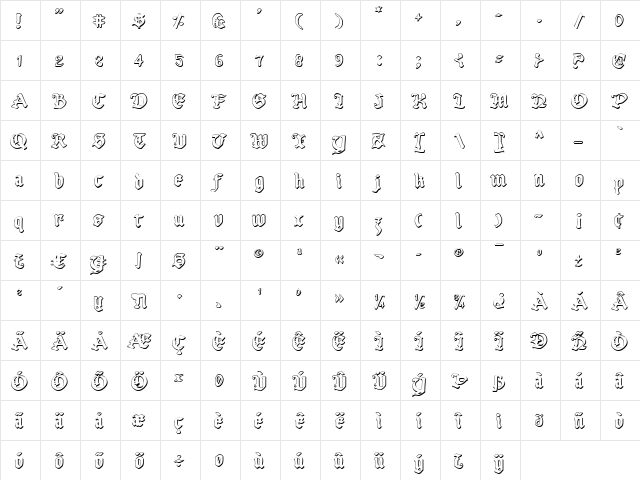
Uberh Outline Outline
Design Context for Uberh�� Outline Typeface
Uberh�� Outline is built around its visual character rather than neutral utility — its distinctive forms are designed to make an impression at display sizes.
Font Pairing: Pair with a clean neutral sans-serif for body copy to let Uberh�� Outline's character lead without overwhelming the composition.
Pro Tip: Treat Uberh�� Outline as the centrepiece of your typographic hierarchy. One strong heading set in a decorative face can carry an entire layout.